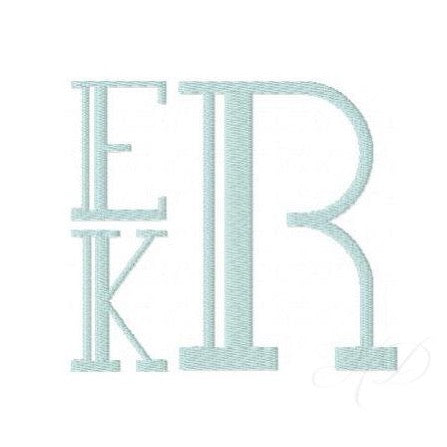
Deco Fill Embroidery Font Small
Enhance your crafting projects with our Deco Fill Embroidery Font Small—a unique embroidery fill font that blends retro and modern styles effortlessly. Ideal for personalizing home décor or creating stylish collared shirts, this font package is versatile and easy to use.